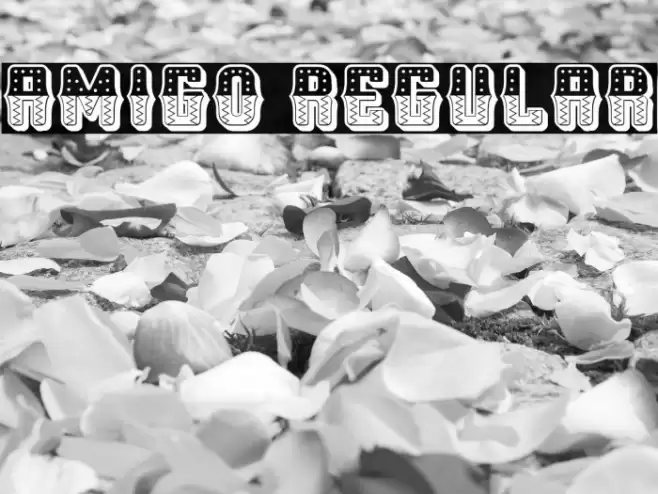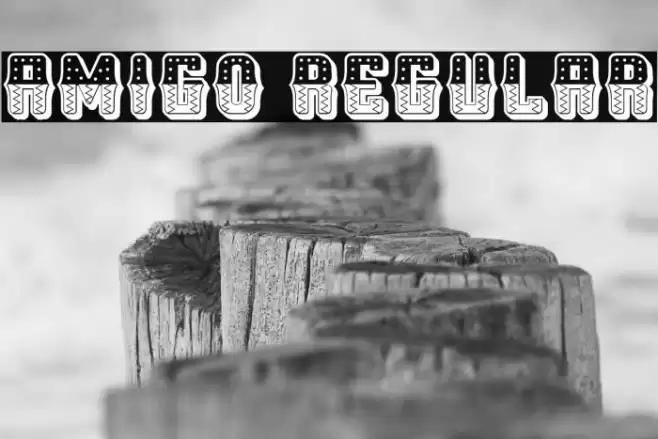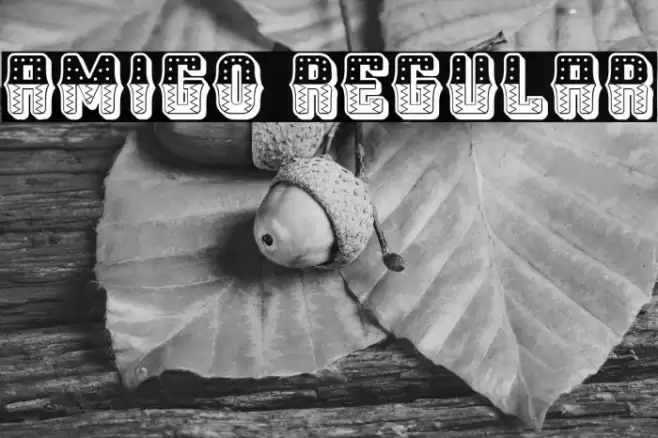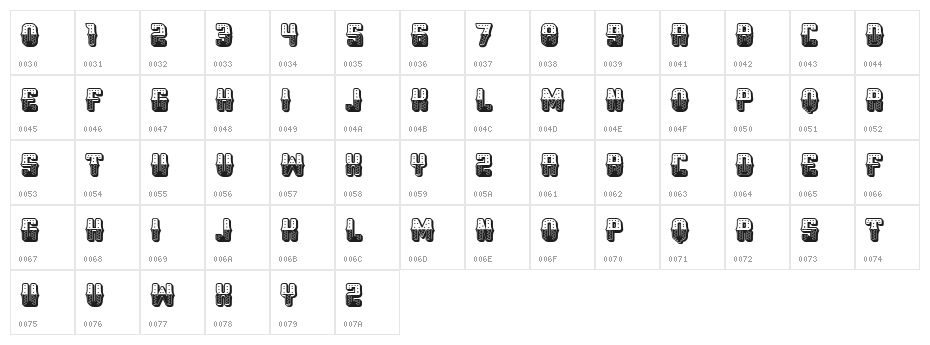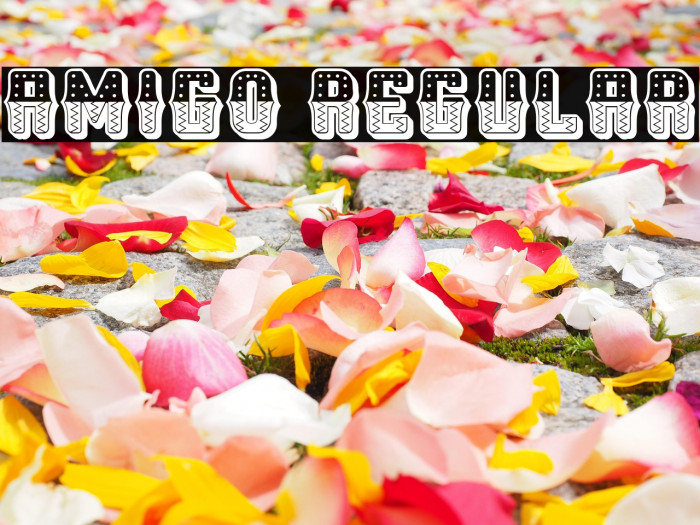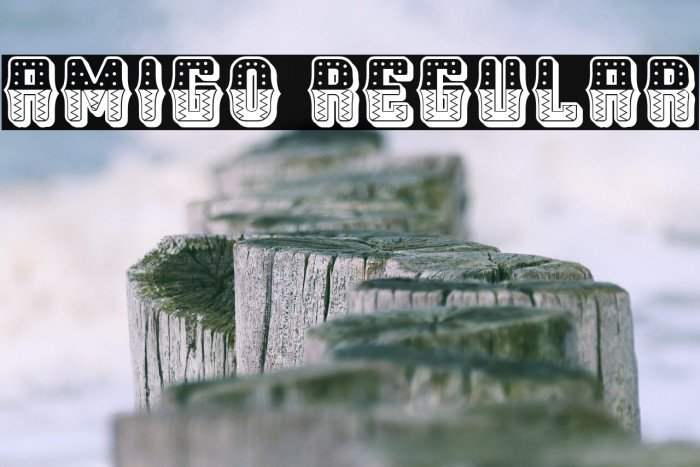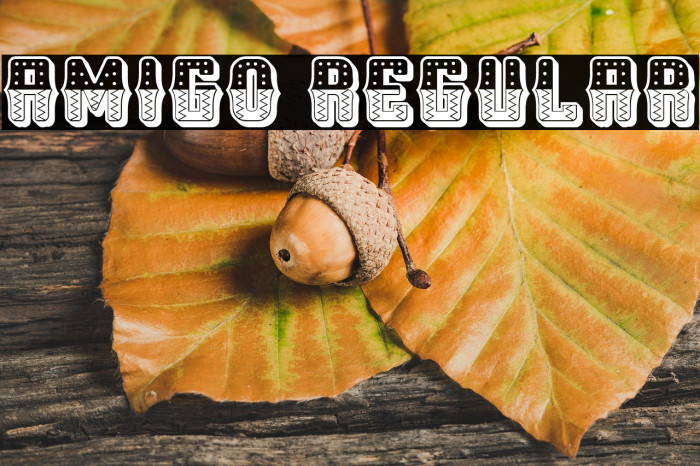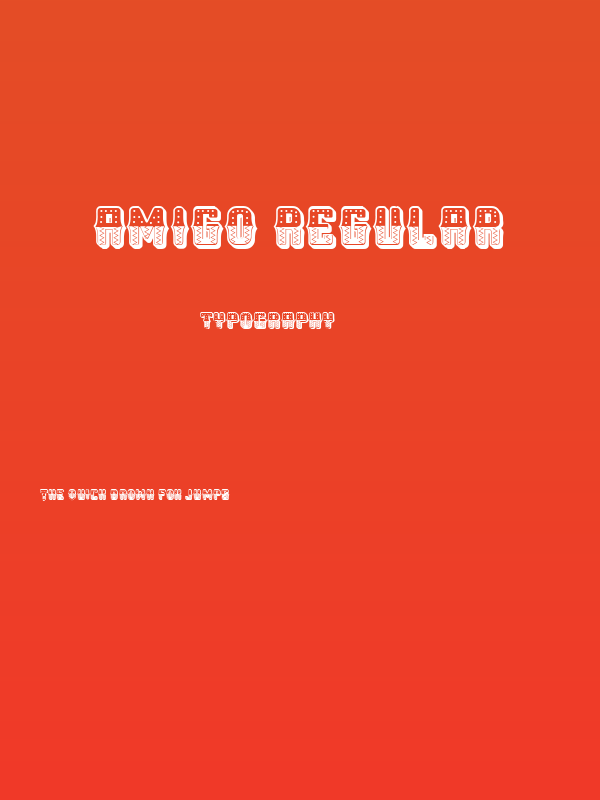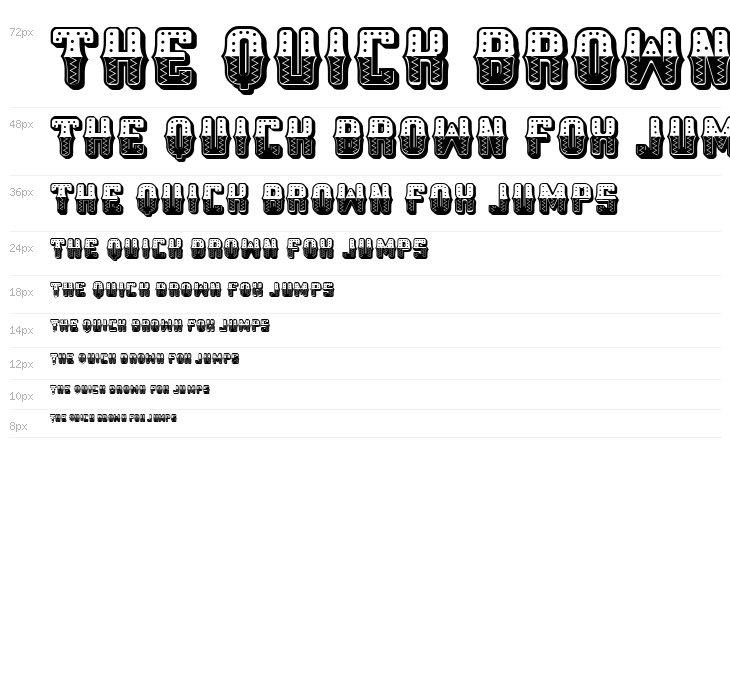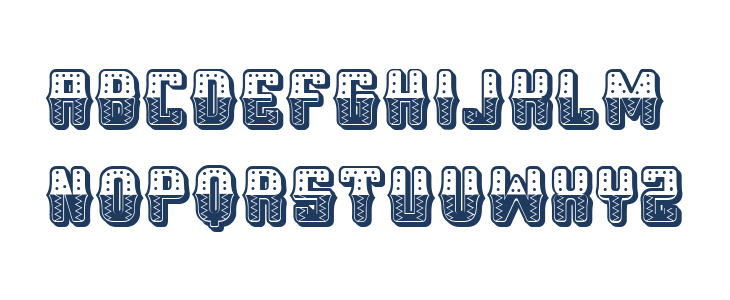
Amigo Regular Font
Amigo Regular Description
This font features a bold, decorative style with intricate patterns inside each character. The design includes a mix of geometric shapes, dots, and lines, creating a visually striking appearance. The characters have a three-dimensional effect with a shadow that adds depth. The uppercase and lowercase letters maintain a consistent style, while the numbers and special characters follow the same decorative theme. This font is ideal for projects that require a unique and eye-catching typeface.
A bold, decorative font with intricate patterns and a three-dimensional effect from Uncategorized fonts.
- Proposed Projects: Ideal for posters, branding, event invitations, and any project needing a standout decorative font.